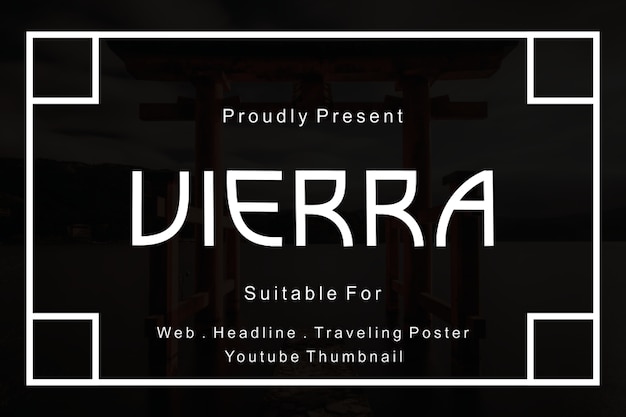
VIERRA Font
The font that's your go-to for versatile design. Perfect for logos, posters, and magazines, its letters are a harmonious blend of style and substance. With a touch of intrigue, it adds an air of sophistication to your text. 'VIERRA' turns your words into a visual symphony, where every character resonates with design versatility, making your projects pop with typographic flair and a dash of modern elegance.